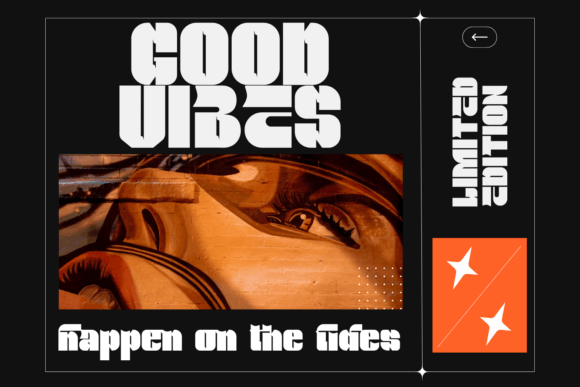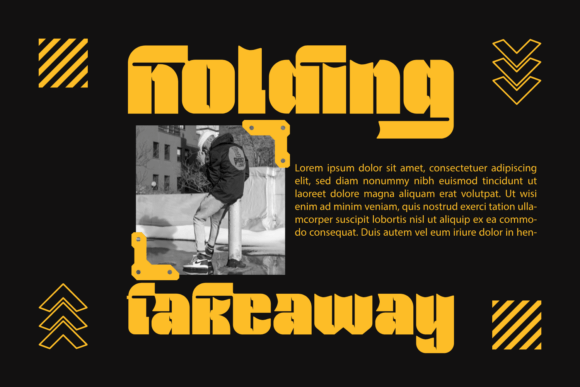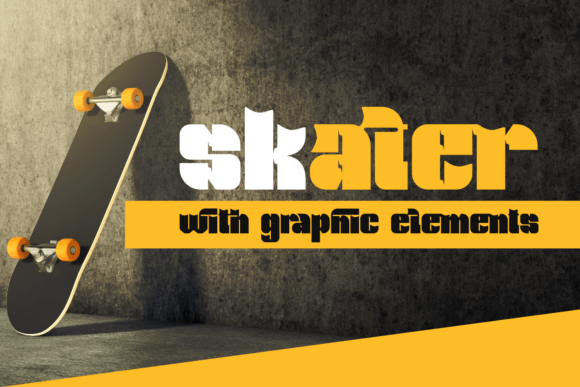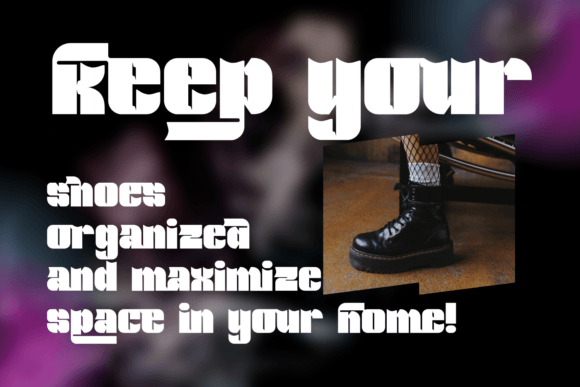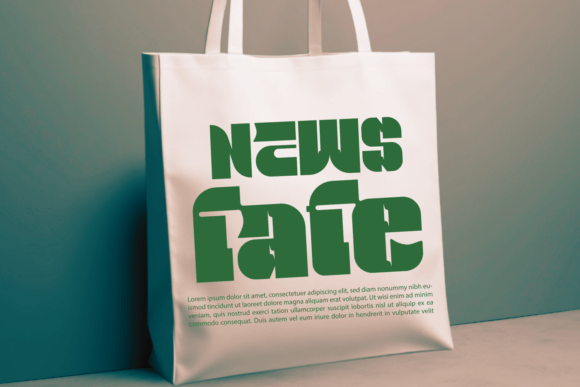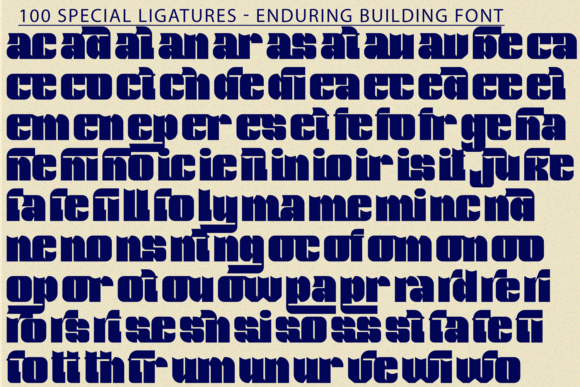
Introducing Enduring Building Font: The Perfect Blend of Retro and Modern Aesthetics
In the world of typography, fonts play a crucial role in conveying the tone and personality of a brand, product, or design. When it comes to creating visually appealing and engaging designs, the right font can make all the difference. If you’re a designer, crafter, or DIY enthusiast looking for a font that combines retro charm with modern flair, look no further than Enduring Building Font. In this article, we’ll explore the unique features and benefits of this versatile font, and how it can elevate your designs to the next level.
A Smooth Design with a Retro Twist
Enduring Building Font is a bold display font that boasts a smooth design, carefully crafted to provide a perfect blend of retro and modern aesthetics. The font’s sleek lines, rounded edges, and playful curves evoke a sense of nostalgia, while its clean and contemporary look ensures it remains fresh and modern. This unique fusion of styles makes Enduring Building Font an excellent choice for designers and crafters seeking to add a touch of personality to their work.
Impeccable Friendliness and Versatility
One of the standout features of Enduring Building Font is its childish and fun display style, which conveys impeccable friendliness. This makes it an ideal font for designs that require a playful and approachable tone, such as greeting cards, invitations, and social media graphics. Additionally, the font’s versatility ensures it can be used across various applications, including crafts, digital designs, presentations, and even book covers.
Whether you’re a professional designer or a DIY enthusiast, Enduring Building Font is an excellent addition to your typography toolkit. The font’s bold and eye-catching design makes it perfect for:
- Crafts: Use Enduring Building Font to add a personal touch to your handmade crafts, such as scrapbooking, card making, and journaling.
- Digital Designs: Create stunning social media graphics, blog headers, and website elements with this versatile font.
- Presentations: Add a touch of personality to your presentations and slideshows with Enduring Building Font.
- Cover Books: Use this font to create eye-catching book covers that grab attention.
- Greeting Cards: Design beautiful and personalized greeting cards for special occasions.
Why Choose Enduring Building Font?
With so many fonts available, why choose Enduring Building Font? Here are just a few reasons:
- Unique Style: Enduring Building Font offers a distinctive blend of retro and modern aesthetics that’s sure to set your designs apart.
- Versatility: This font can be used across various applications, from digital designs to crafts and presentations.
- Friendliness: The font’s playful and approachable style conveys impeccable friendliness, making it perfect for designs that require a personal touch.
- Ease of Use: Enduring Building Font is easy to read and works well in both large and small sizes, making it a practical choice for designers and crafters.
In conclusion, Enduring Building Font is a bold and versatile display font that offers a perfect blend of retro and modern aesthetics. Its smooth design, playful curves, and impeccable friendliness make it an excellent choice for designers and crafters seeking to add a touch of personality to their work. Whether you’re creating digital designs, crafts, presentations, or book covers, Enduring Building Font is the right choice. So why wait? Download Enduring Building Font today and take your designs to the next level!